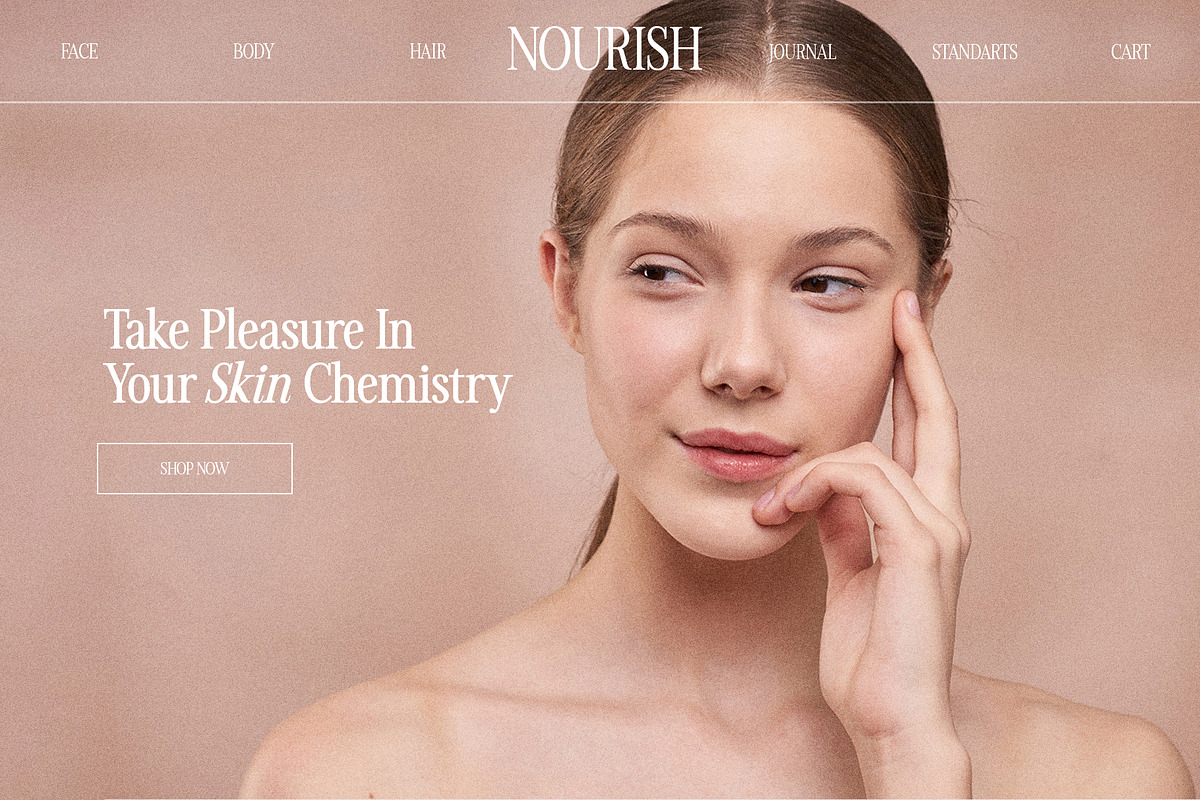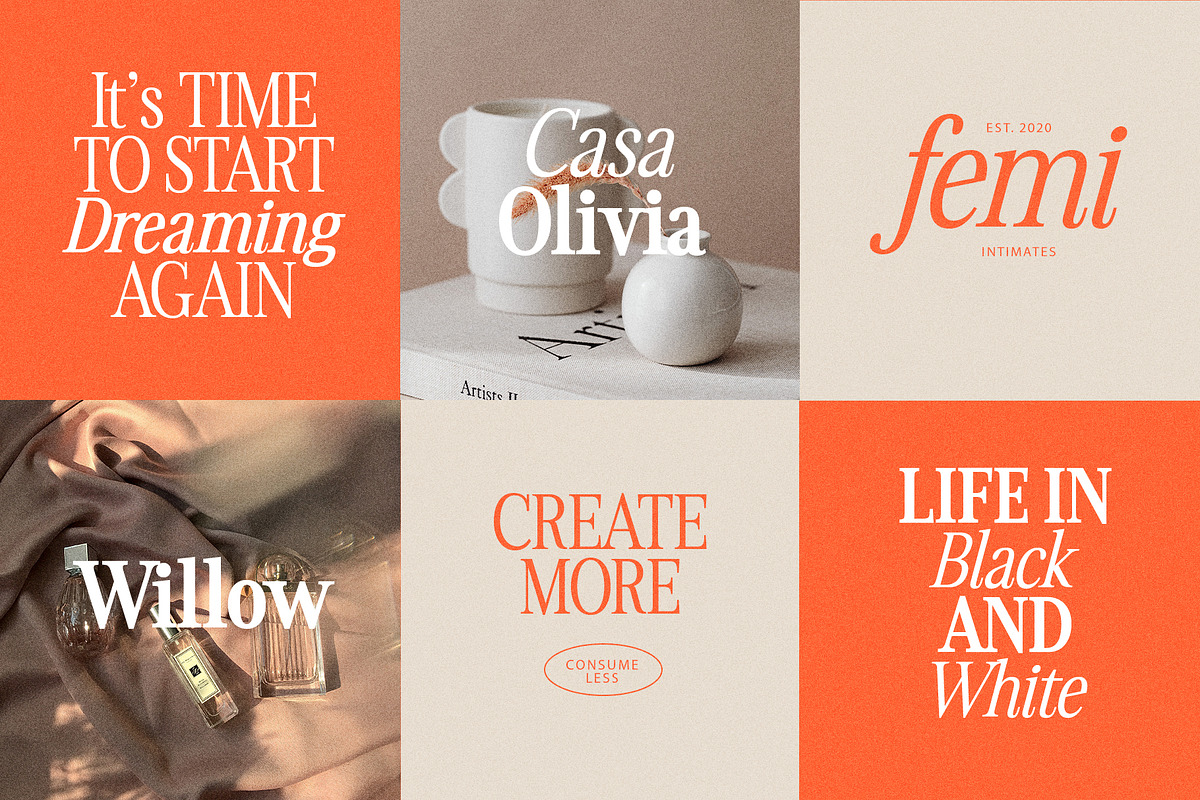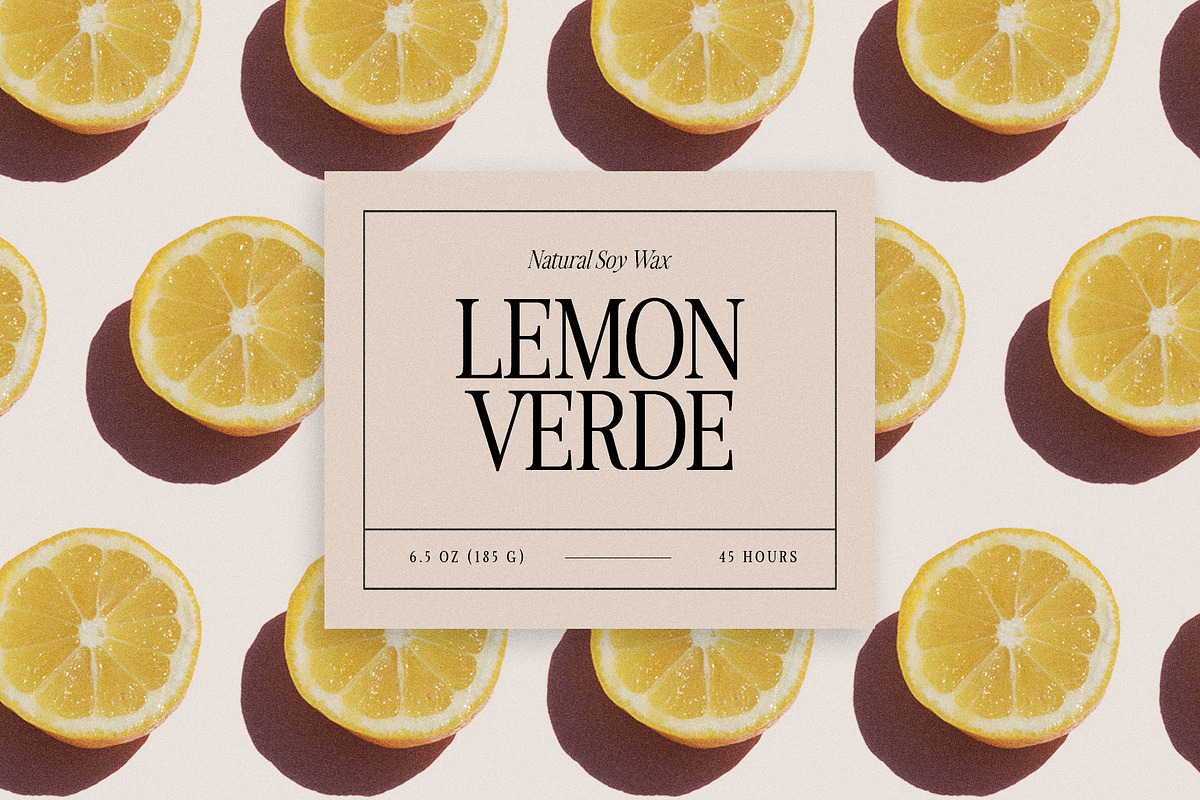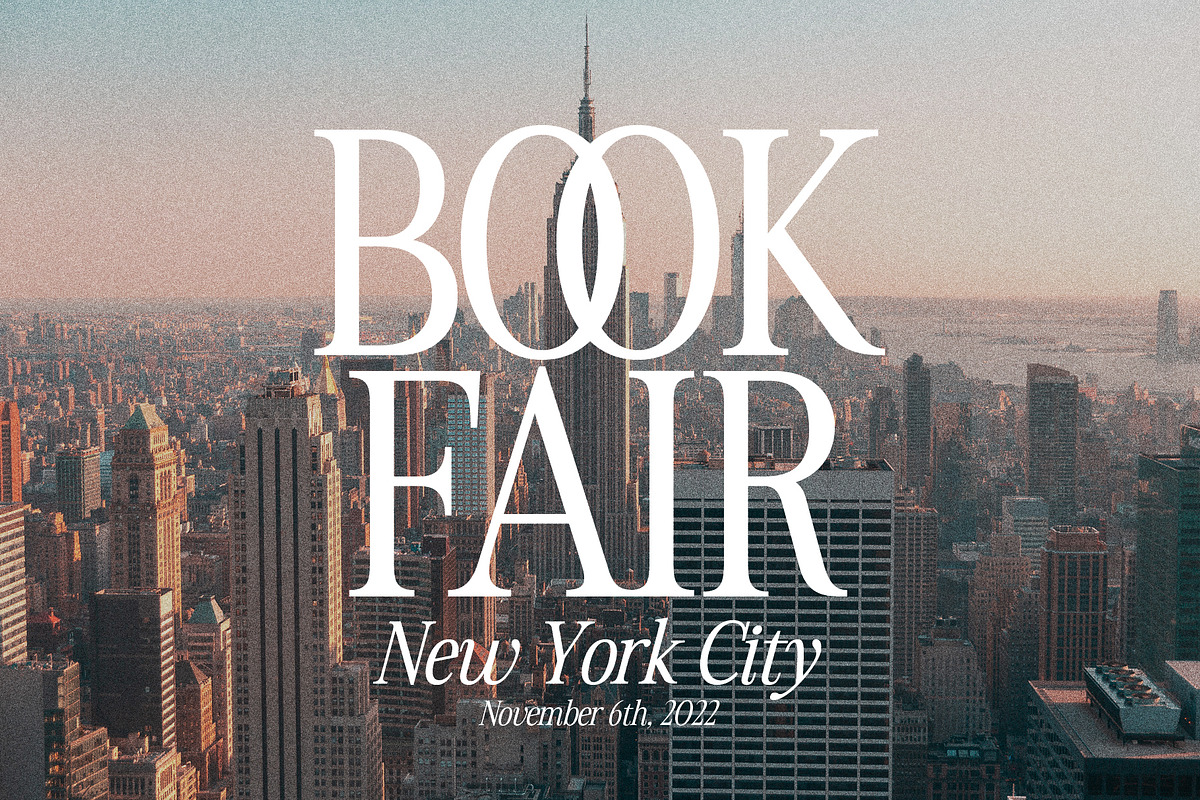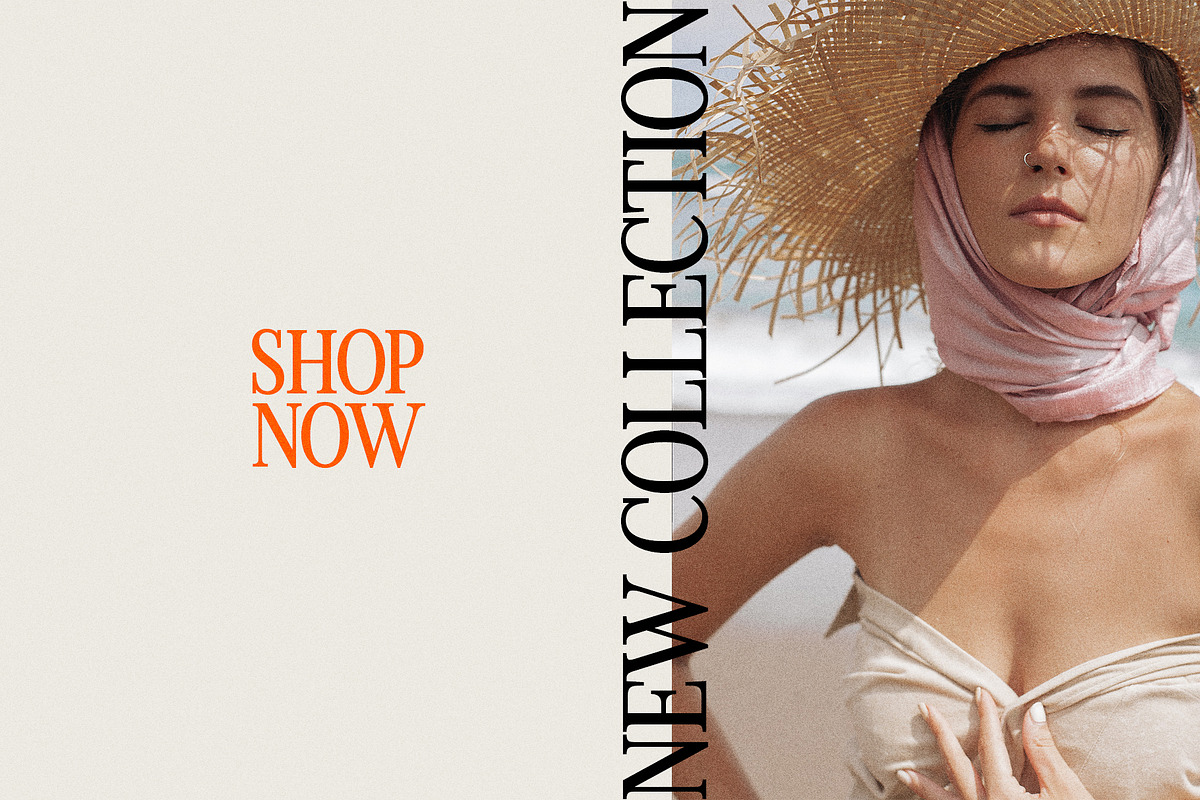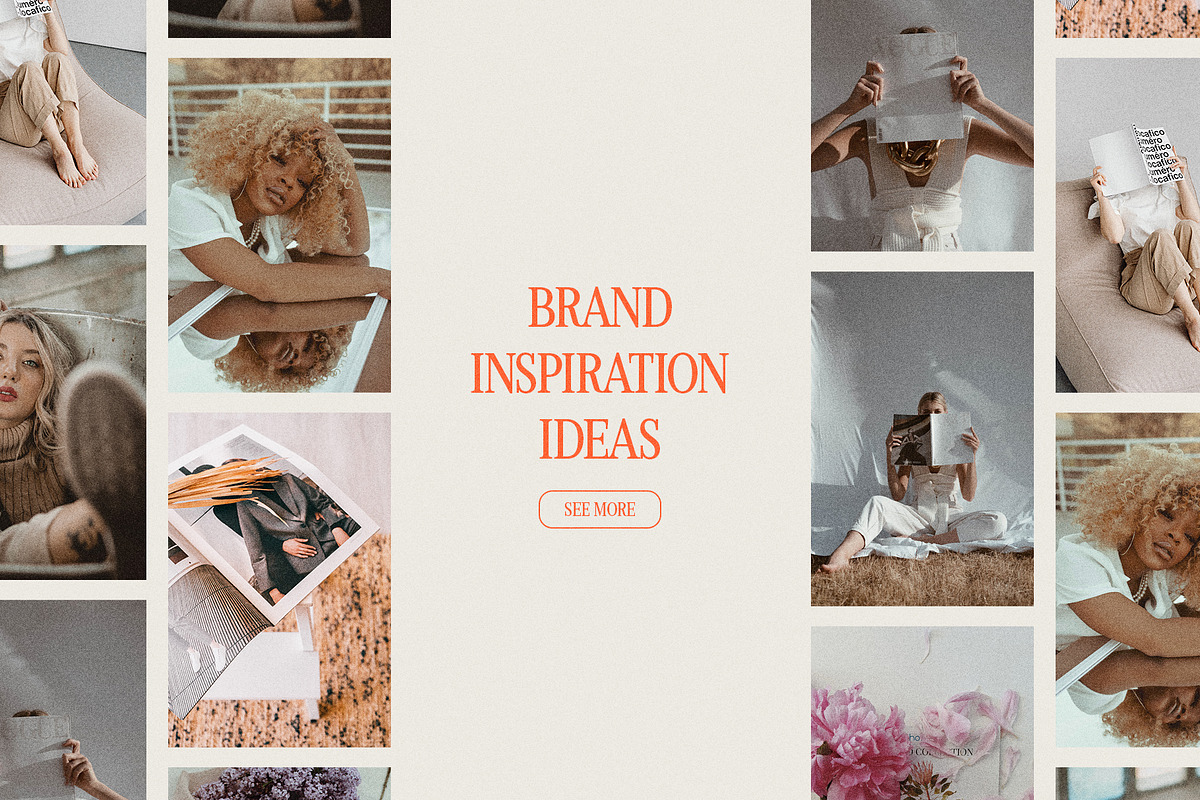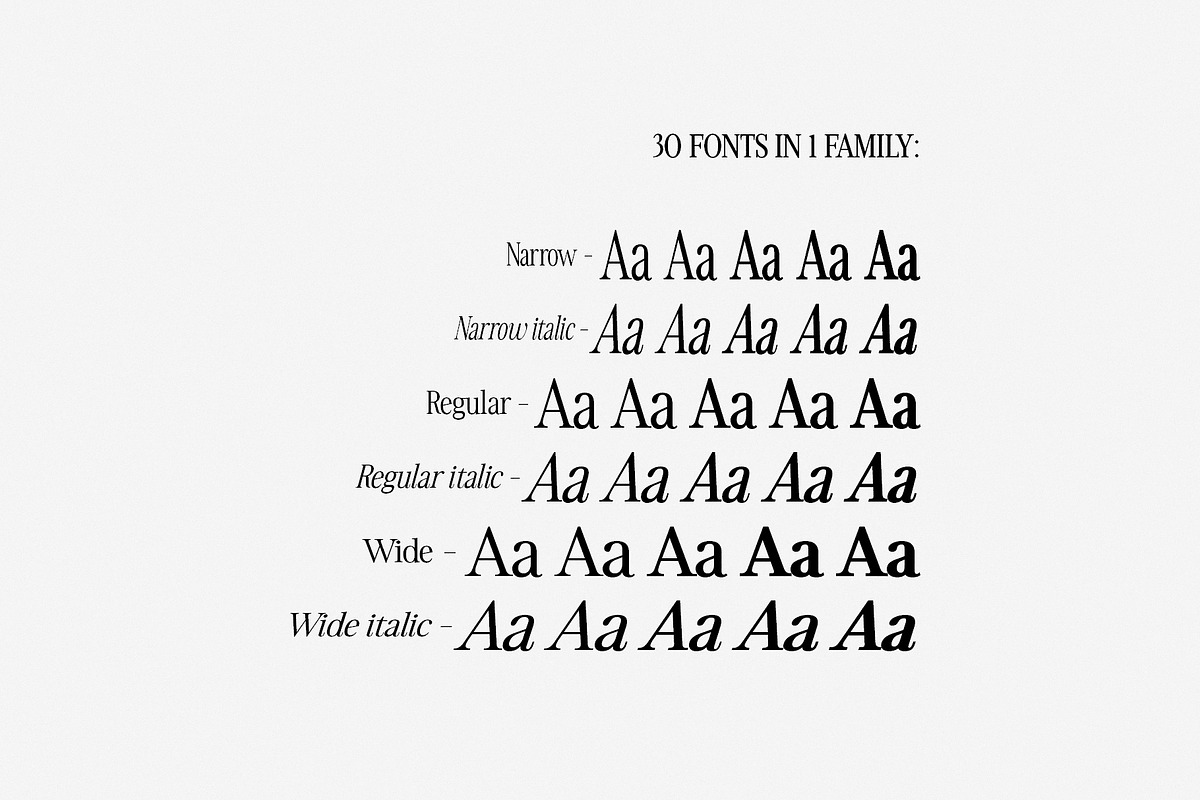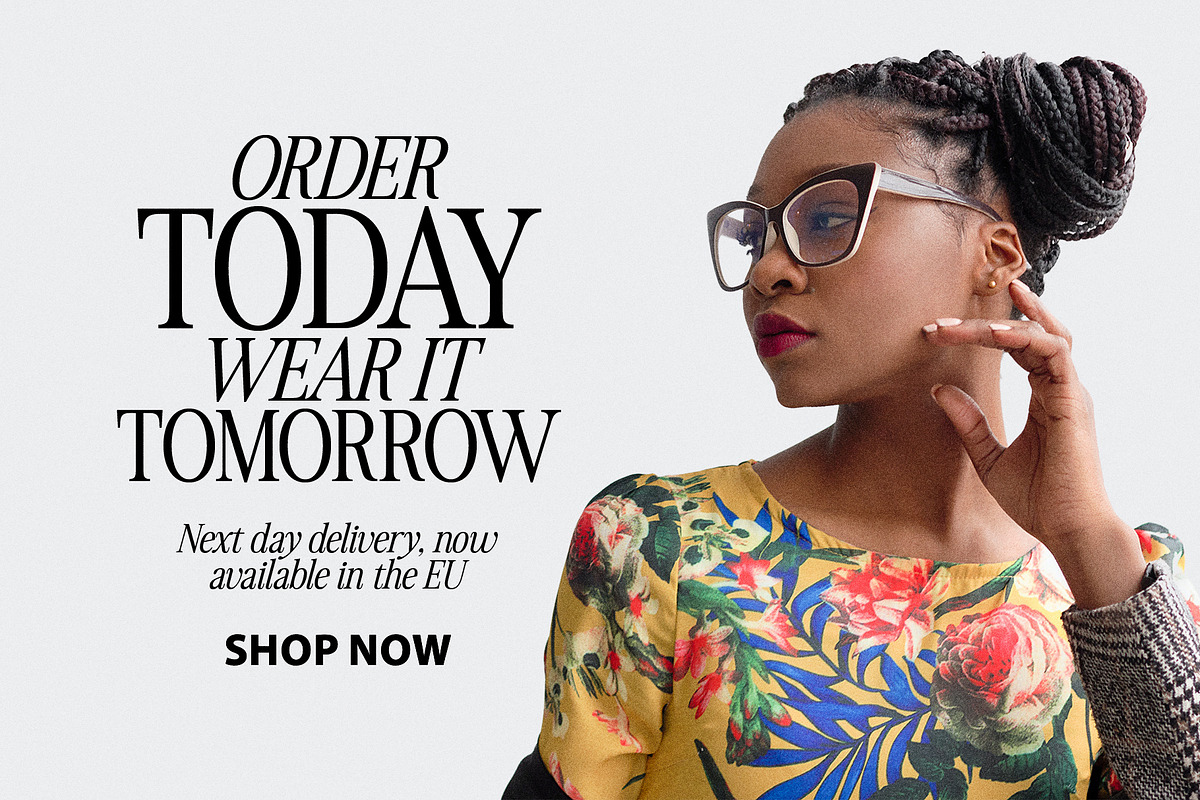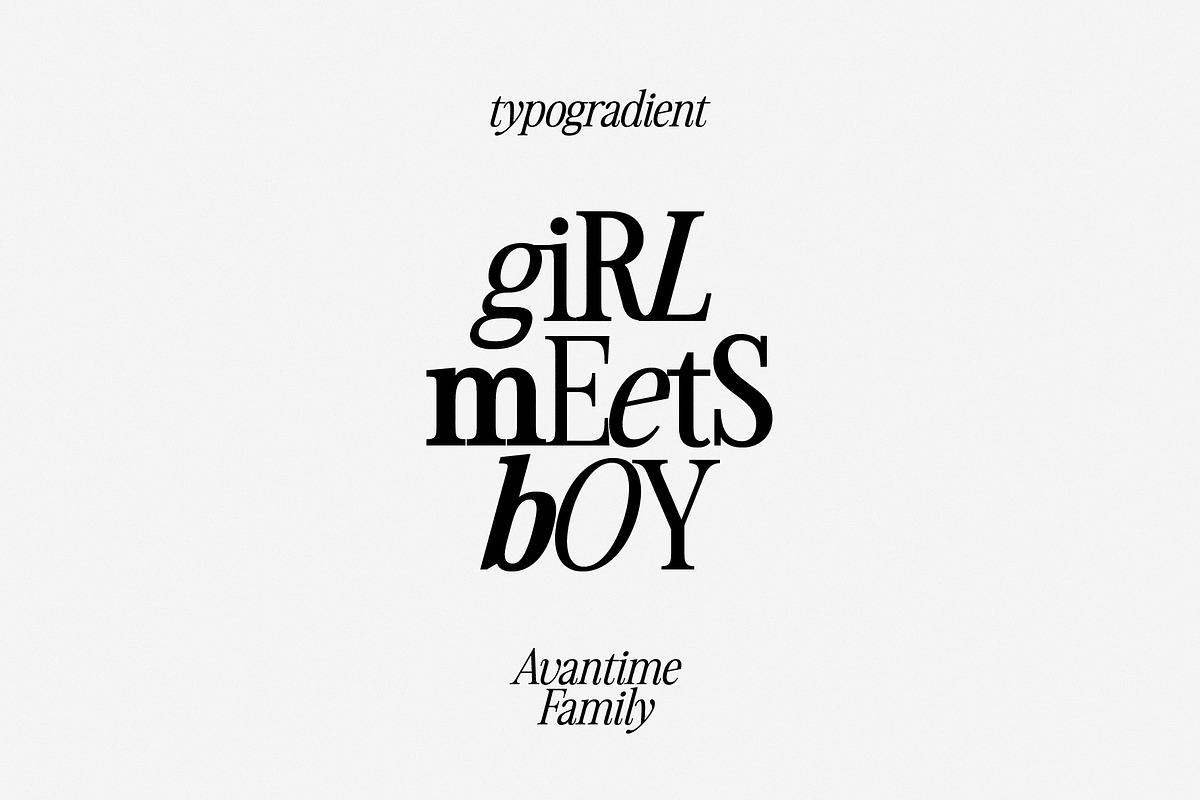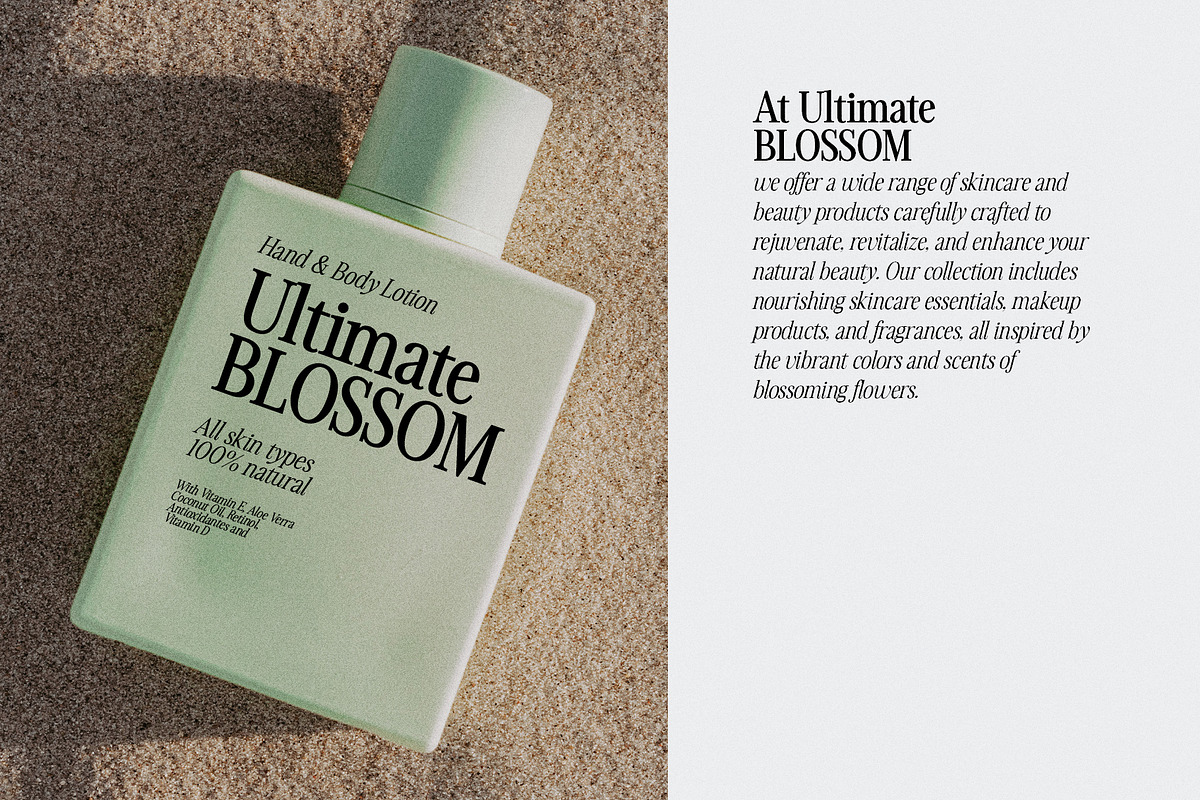
Avantime vintage serif (30 fonts)
Charming 80's retro inspired typeface with wonderful versatility given it includes 30 fonts. This is a perfect for any project
Inspired by magazine adverts from the 70's and 80's - this family fit right in with bringing retro back into the 21st century. Super-versatile - have a scroll through all the preview to see the very wide range of variety the Avantime back can manifest the possibilities are really quite endless :)
Avantime Font Features:
- 30 fonts
- Full Set of standard alphabet and punctuation
- Language support: All European languages